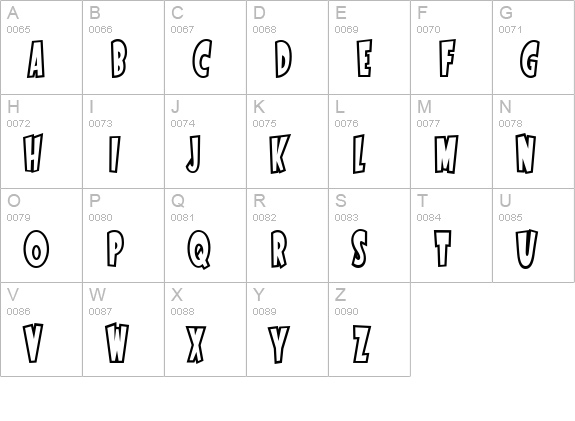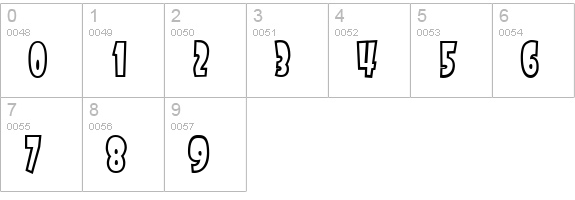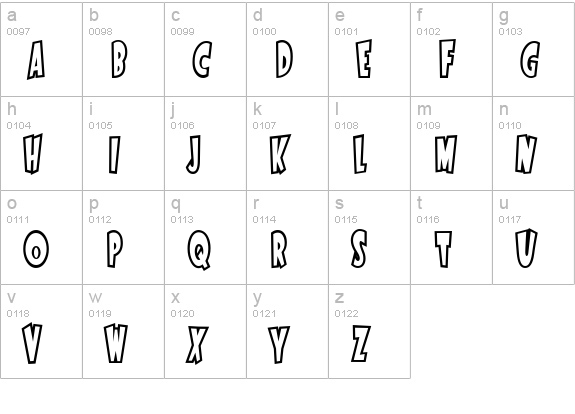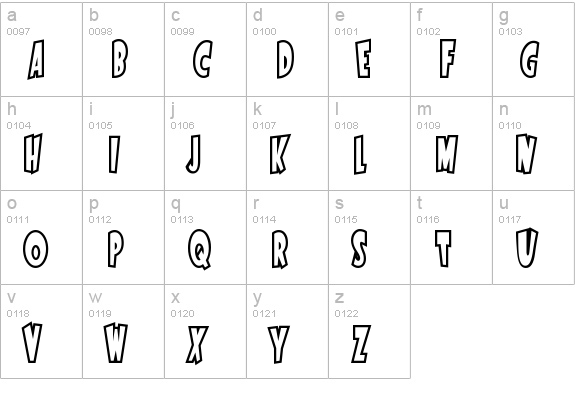
StartlingFontOpen is a visually striking and attention-grabbing font that is sure to make your designs stand out. With its bold and dynamic letterforms, this font demands attention and leaves a lasting impression. Whether you are creating a logo, designing a poster, or working on a website, StartlingFontOpen is the perfect choice to make your text pop. What makes StartlingFontOpen even more impressive is that it is completely free. Yes, you read that right - this amazing font is freely available to download at FontsMarket.com. This means that you can enhance your designs without having to spend a dime. Featuring a wide range of characters and glyphs, StartlingFontOpen offers versatility and flexibility for all your design needs. From uppercase to lowercase letters, numbers, punctuation marks, and special symbols, this font has it all. Its clean and modern aesthetic makes it suitable for various design styles and purposes. In addition to its stunning visual appeal, StartlingFontOpen is also highly legible, ensuring that your message is easily conveyed to your audience. Its clear and well-defined letterforms make reading effortless, whether it's in print or on screen. So why wait? Take advantage of this incredible opportunity to elevate your designs with StartlingFontOpen. Download it for free at FontsMarket.com and unleash your creativity like never before. Stand out from the crowd and make a lasting impact with this exceptional font.